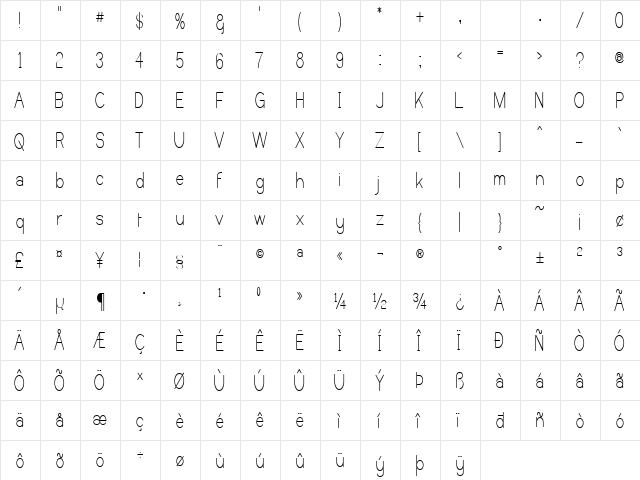
Castorgate - Upright Regular Font Preview
Castorgate - Upright Regular
Castorgate - Upright Regular Font Details
Design Context for Castorgate - Upright Typeface
Castorgate - Upright takes a measured approach to typography — its balanced proportions and neutral character make it a reliable workhorse for both digital and print work.